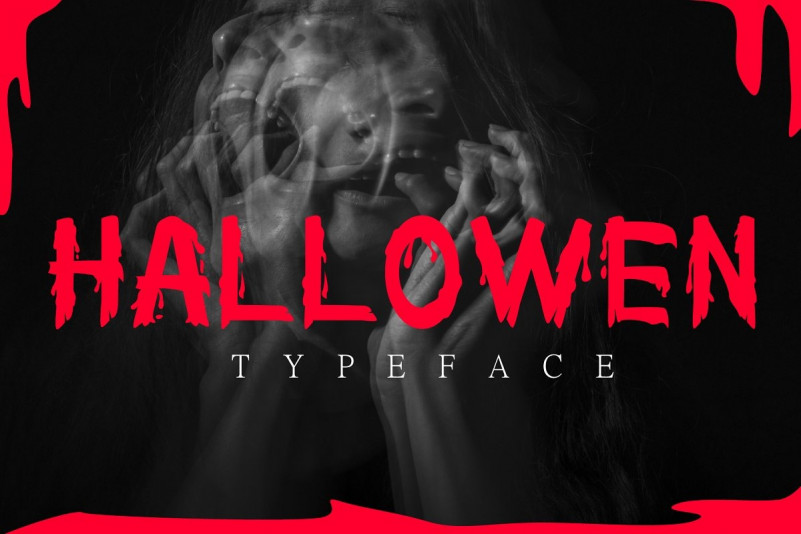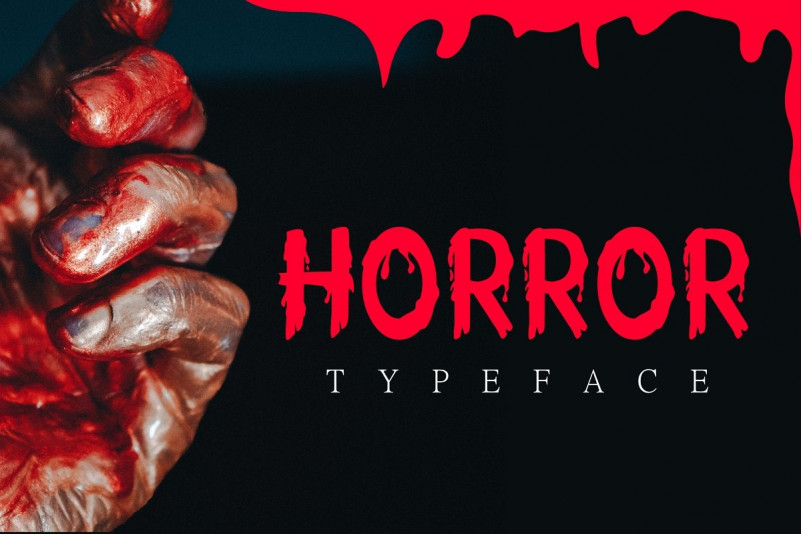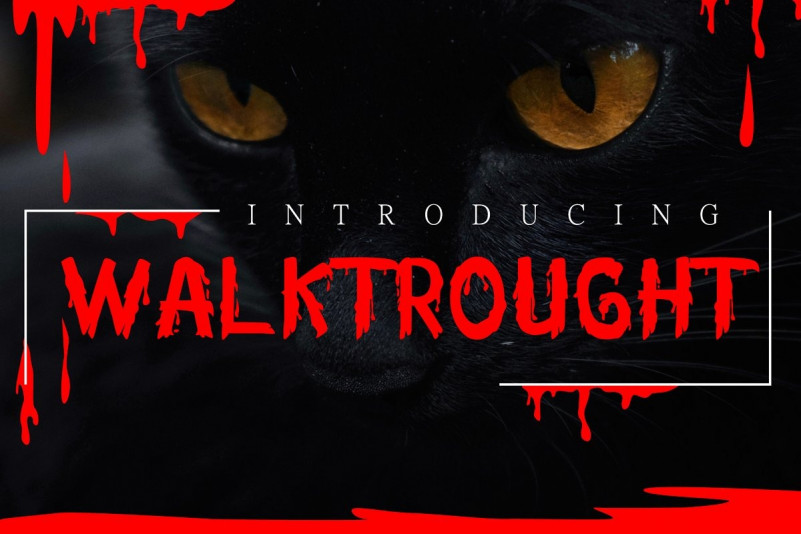
Walktrought Horror Font
Walktrought Horror Font in the creepy style. Set of multicolored bright letters for inscriptions and your design. Vector illustration. Isolated on white background.